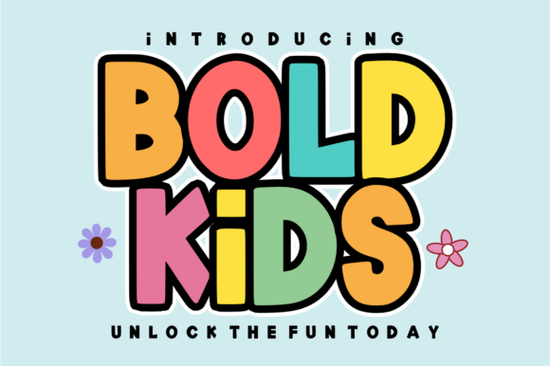
If you're looking for a display font that feels energetic, friendly, and easy to cut or print especially for kids’ projects Bold Kids Font fits naturally into your workflow. It’s not overly polished or digital-perfect; instead, it leans into playful imperfection with thick, hand-drawn block letters that still hold crisp clarity at larger sizes. That balance makes it especially useful for crafters using Cricut or Silhouette machines, teachers making classroom posters, or small-biz owners designing t-shirts and stickers for young audiences.
What makes Bold Kids Font work so well for children’s designs?
It’s designed with intention not just looks. The letterforms are chunky enough to stay legible when scaled down on a onesie or up on a bulletin board. There’s subtle variation in stroke weight and slight organic wobble (think pencil-drawn confidence, not shaky hands), which gives warmth without sacrificing readability. Unlike some “cute” fonts that fade into background noise, Bold Kids holds attention without shouting. That’s why it’s become a go-to for printable activity sheets, birthday banners, nursery wall art, and even simple logo variations for kid-focused brands.
How does it perform with cutting machines and design software?
It’s optimized for clean cuts and smooth rendering. No overlapping paths, no hidden layers just straightforward vector outlines that import cleanly into Cricut Design Space, Silhouette Studio, Adobe Illustrator, Canva, and Affinity Designer. If you’ve ever wrestled with a font that auto-kerns oddly or fails to convert to outlines properly, you’ll appreciate how reliably Bold Kids Font behaves. Bonus: it includes both uppercase and lowercase letters, plus numbers and basic punctuation so you’re not stuck typing everything in caps or hunting for alternate glyphs.
Where does it fit alongside other popular display fonts?
It sits comfortably between bouncy and bold less exaggerated than Rainbow Darling Duo Font, but more structured than Doodle Line Font. If you like the energy of Trup Tomp Font but want something less angular, or the friendliness of Real Wavy Stacked Font with more presence, Bold Kids Font fills that middle ground nicely. And while Dirty Strong Font brings grit and attitude, Bold Kids swaps edge for approachability without losing visual impact.
Who uses this font and how?
- Teachers and homeschoolers use it for flashcards, reward charts, and themed unit headers especially in early elementary settings where clarity and charm matter equally.
- Print-on-demand sellers pair it with simple illustrations (like clouds, rockets, or smiling animals) for nursery decor, back-to-school bundles, or baby milestone cards.
- Crafters layer it over vinyl or heat-transfer designs for kids’ tote bags, lunchboxes, and custom backpacks its thick strokes help prevent weeding fatigue.
- Small creative businesses choose it for brand extensions like workshop names, class titles, or seasonal promotions where consistency and child-friendly tone go hand-in-hand.
It’s also worth noting: this isn’t a “trend-only” font. Its simplicity and strong personality mean it won’t feel dated next year or even in three years. That longevity matters when you’re building a consistent visual library across products, social posts, or classroom materials.
Like most display fonts, Bold Kids Font works best at medium to large sizes think 24pt and up for body text in printables, or 100+ pixels for web banners. It’s not meant for long paragraphs or fine print. Also, because it’s hand-drawn in spirit, spacing is intentionally generous. If you’re pairing it with a secondary font (say, a clean sans-serif for subtitles), test alignment and line height carefully you’ll likely want slightly looser tracking than usual.